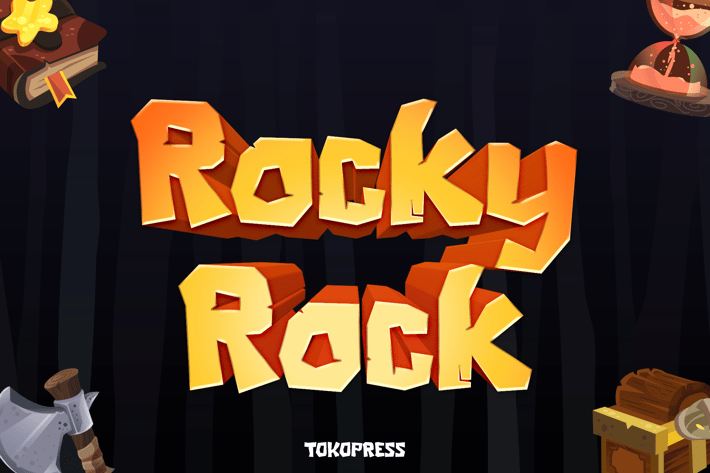
Rocky Rock- Gaming font
Rocky Rock- Gaming Font
Rocky Rock is a rugged display font built for impact—designed with bold, high-contrast gaming typography in mind. Its heavy, angular structure and jagged, chiseled edges create a battle-worn, fantasy-inspired aesthetic that feels perfectly at home in a video game interface, victory screen, or adventure poster. With an assertive vibe and dramatic proportions, this font brings drama and energy to any layout. Whether used in fantasy gaming, action branding, or app UI, it commands attention.
From mobile game splash screens to “Victory” titles, Rocky Rock delivers the kind of typographic punch game developers, fantasy illustrators, and YouTube content creators need. Its textured, stone-like look evokes strength, danger, and challenge—ideal for RPGs, strategy games, medieval themes, and epic gameplay content. Use it to make your interface, logo, or title feel forged from stone and filled with action.
Key Features
Perfect For :
- Gaming logos, UI menus, and victory/failure screens
- YouTube thumbnails for gameplay channels
- Posters for action or fantasy-themed content
- App UI for dungeon crawlers, RPGs, and adventure genres
Design Strengths:
- Angular, stone-carved style with sharp terminals
- Strong weight for maximum legibility in high-stakes settings
- Geometric forms with impactful balance and flow
- Evokes power, fantasy, and epic storytelling